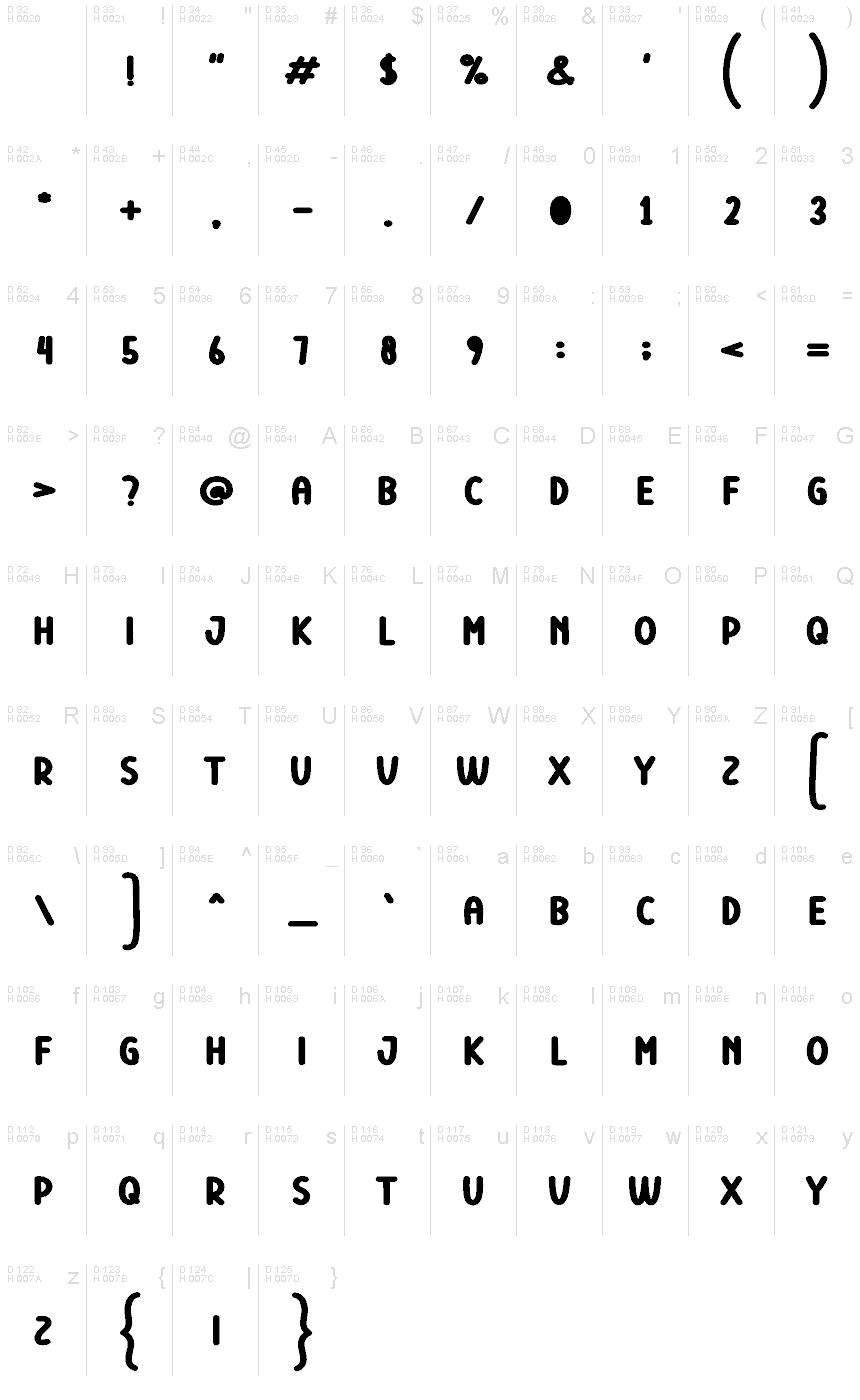
Funny Face
Funny Face font by Andi Moz is a free handwritten font inspired by the retro vibe of the 1960s. It carries an approachable look through its casual tone that reveals a round, smooth, and friendly appearance ideal for relaxed audiences gifted with humor.
Use this mellow font in designs where people can have fun such as book covers, banners, flyers, T-shirt design printing, notebook covers, quotes. Subheadings and logos are other good options to consider in addition to all sorts of children-focused design projects.